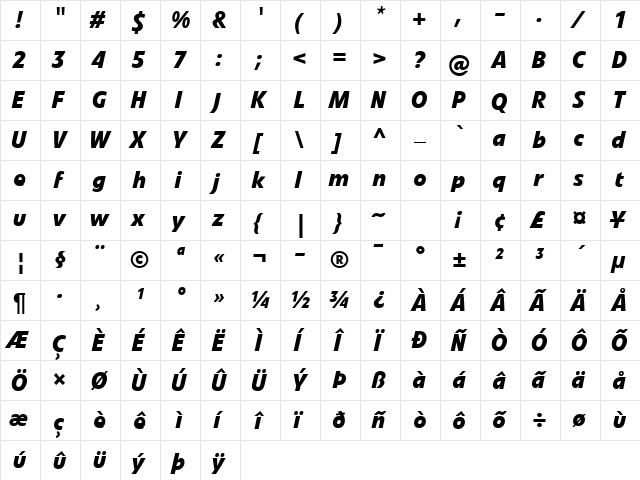
Veto Com Bold Italic Font Preview
| Foundry | Linotype GmbH |
| Designer | Marco Ganz |
Design Context for Veto Com Typeface
Veto Com takes a measured approach to typography — its balanced proportions and neutral character make it a reliable workhorse for both digital and print work. Its italic angle brings a sense of urgency and motion to the letterforms. Its bold stroke weight gives it real presence on the page.